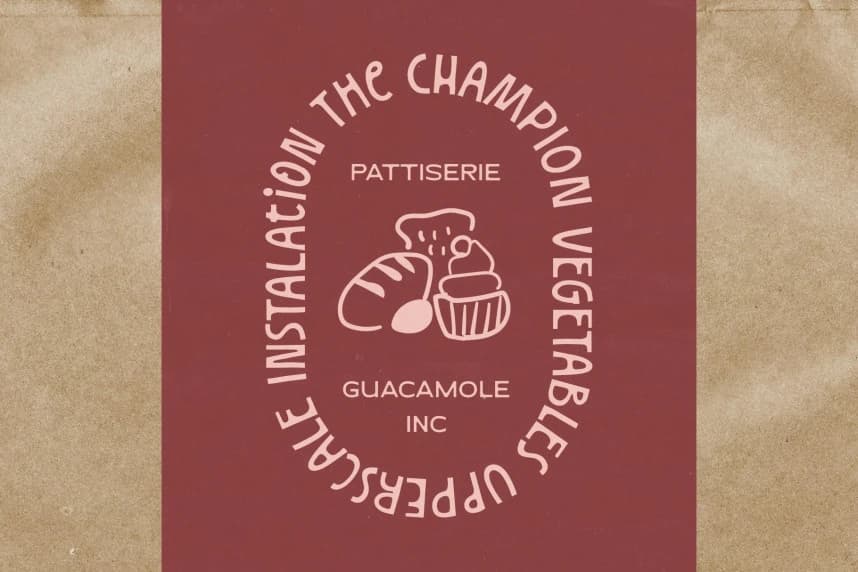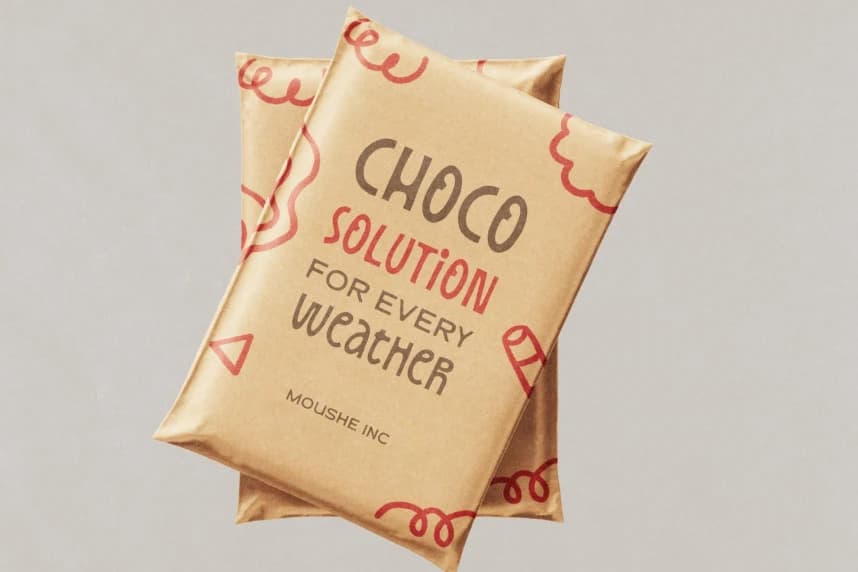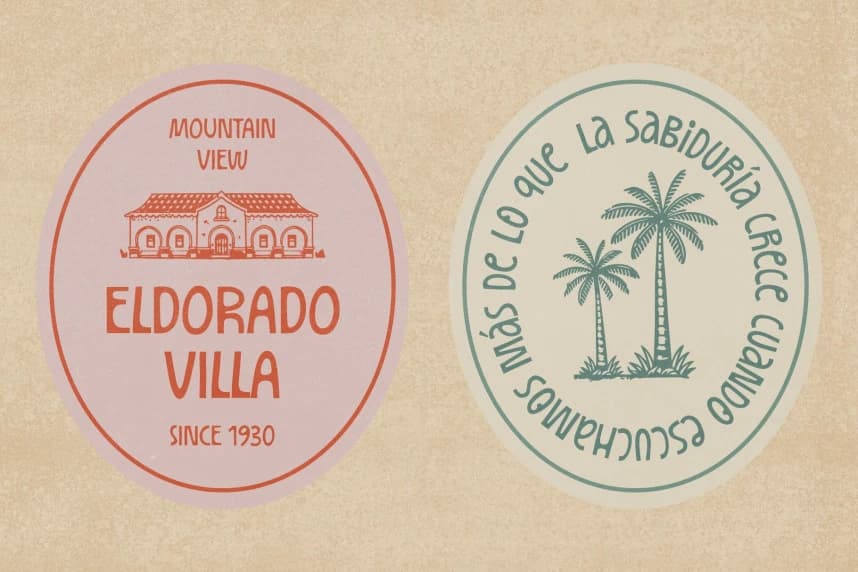
Costague Font
Costague Font is an eccentric display font duo that pairs a distinctive display style with a clean sans companion. Designed with semi-condensed letterforms, Costage delivers a unique balance of expressiveness and structure